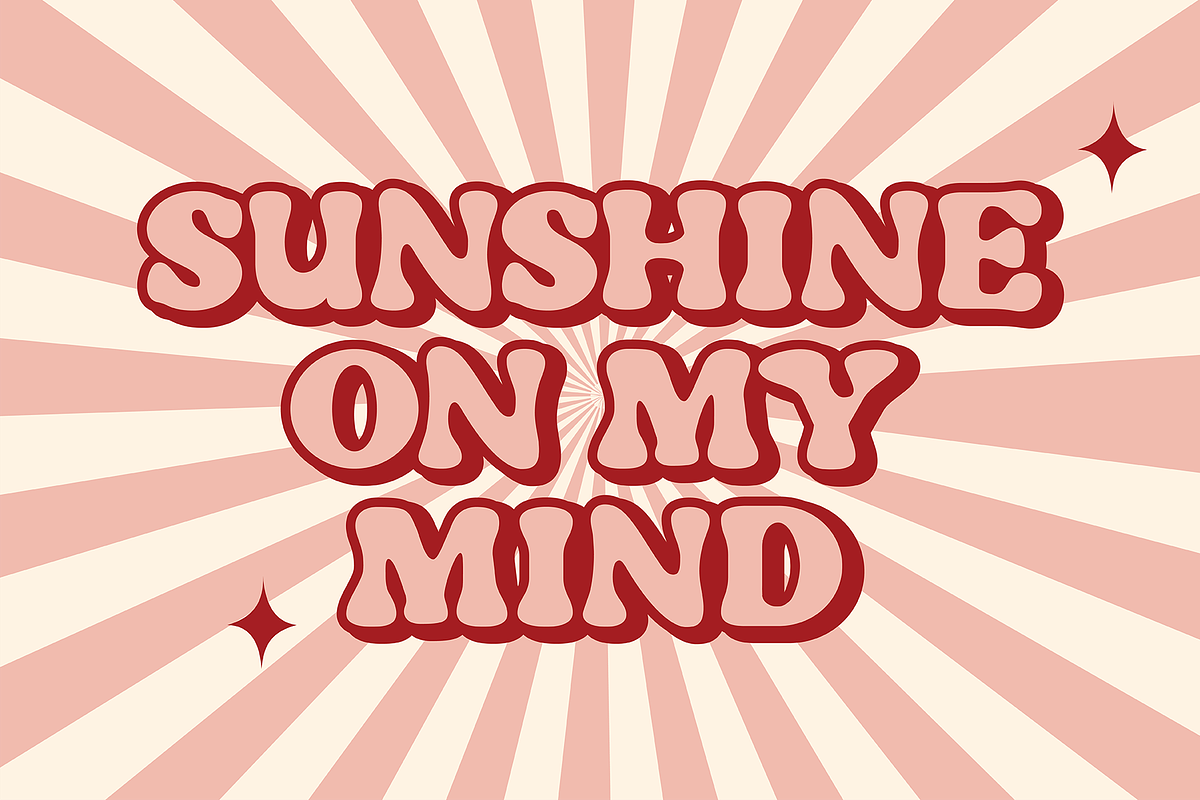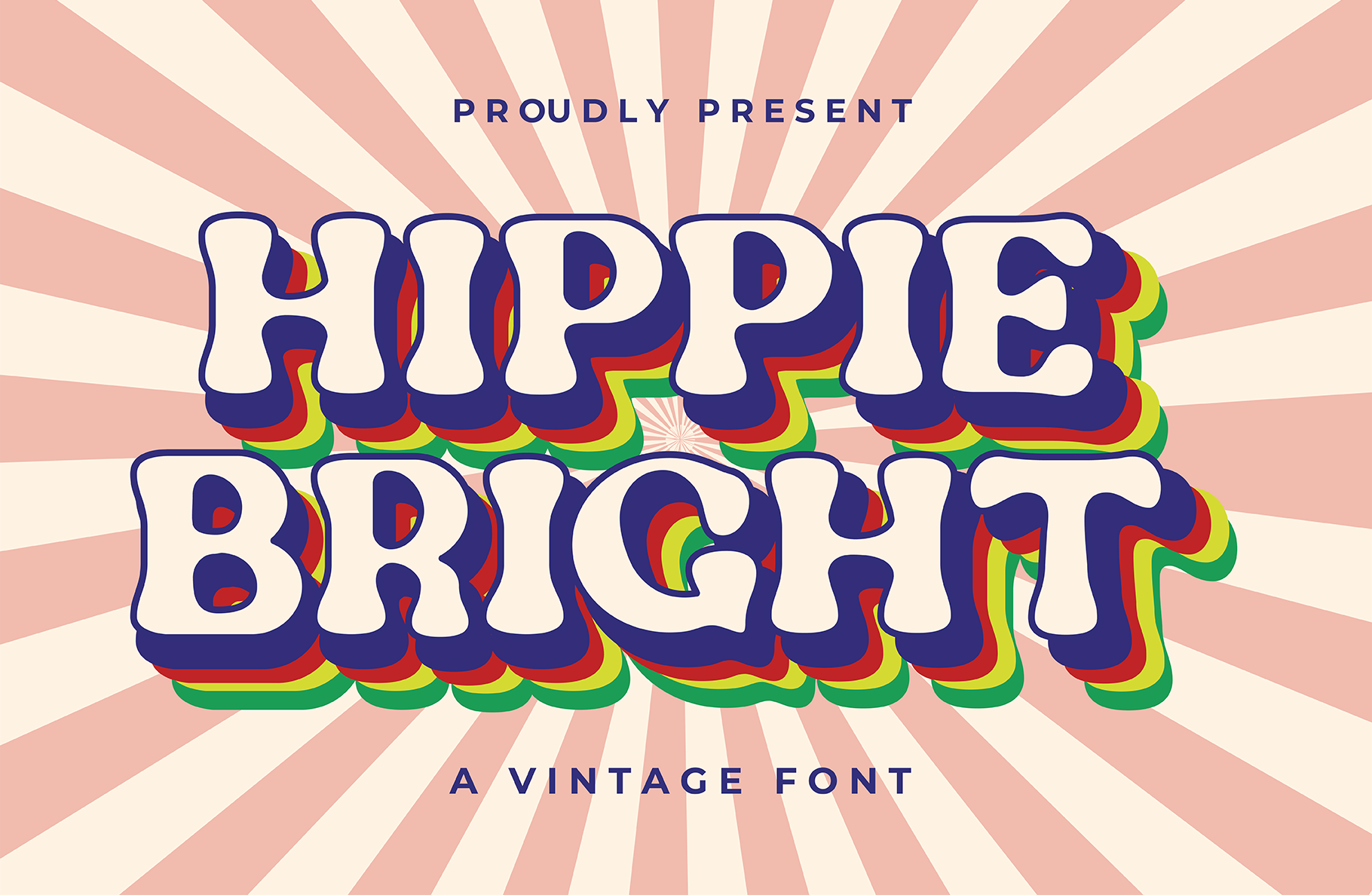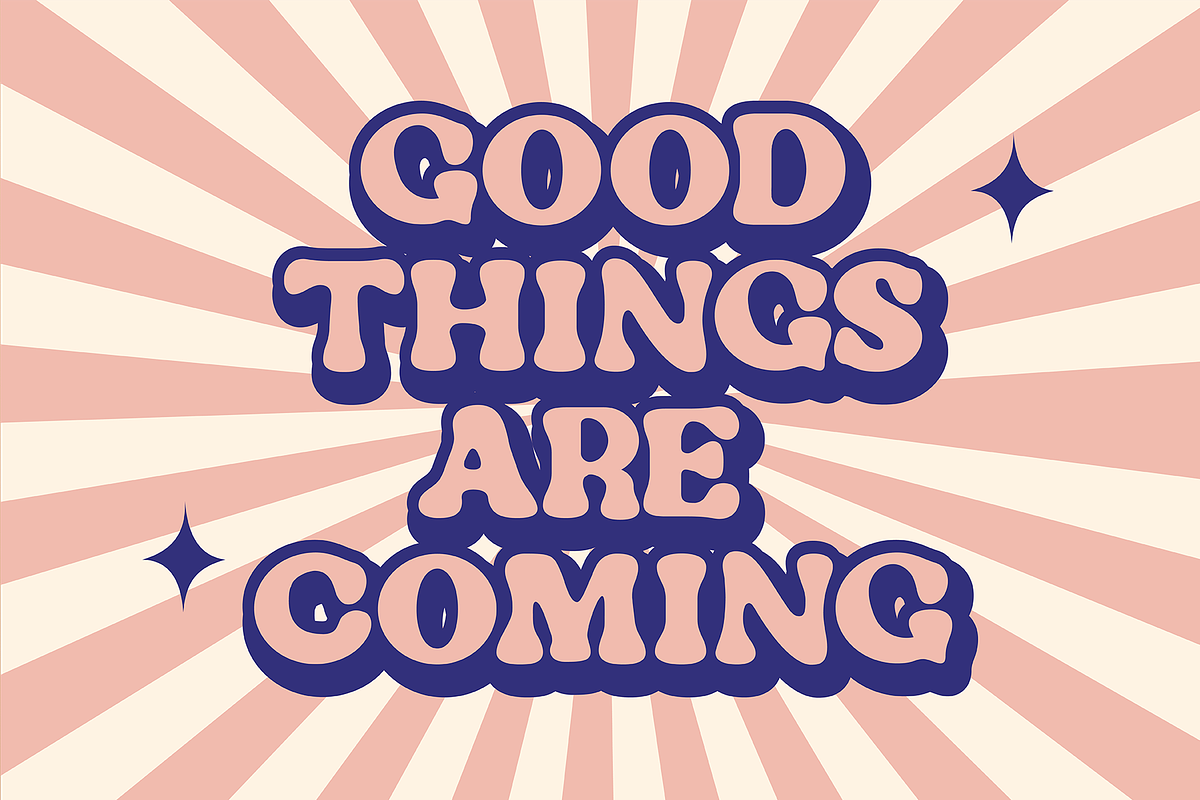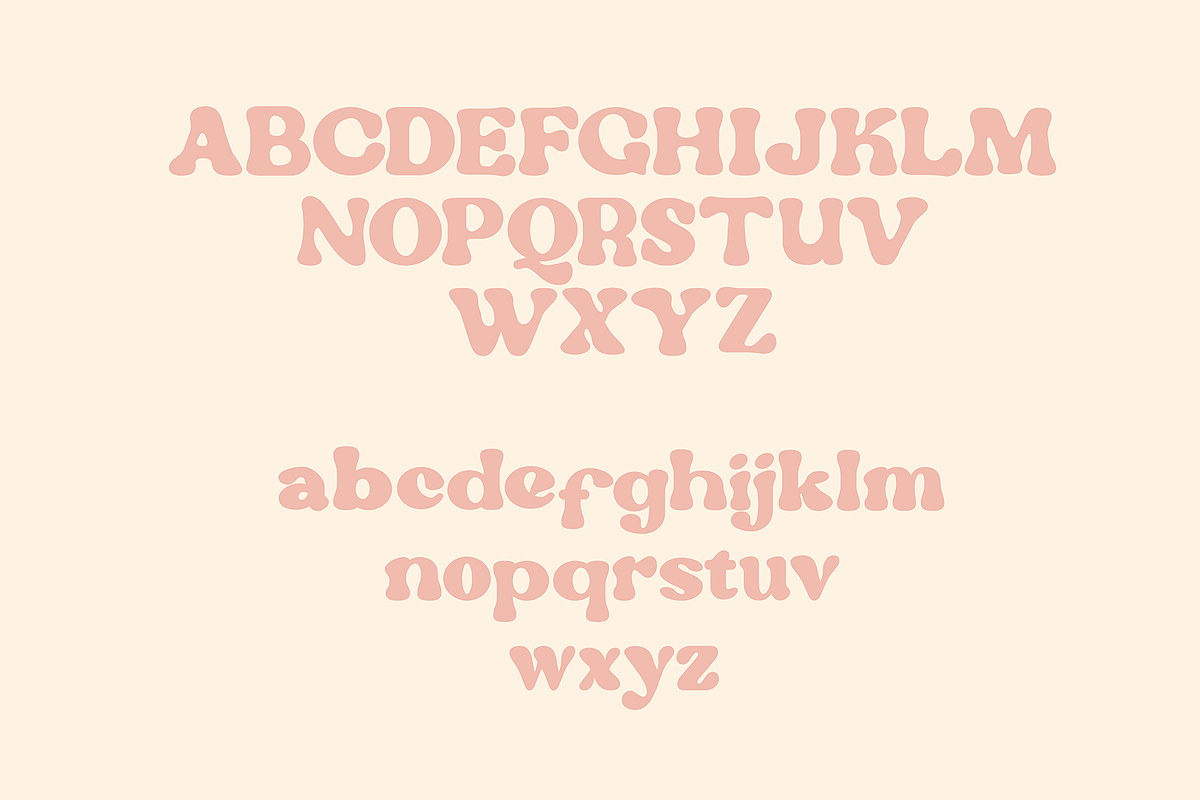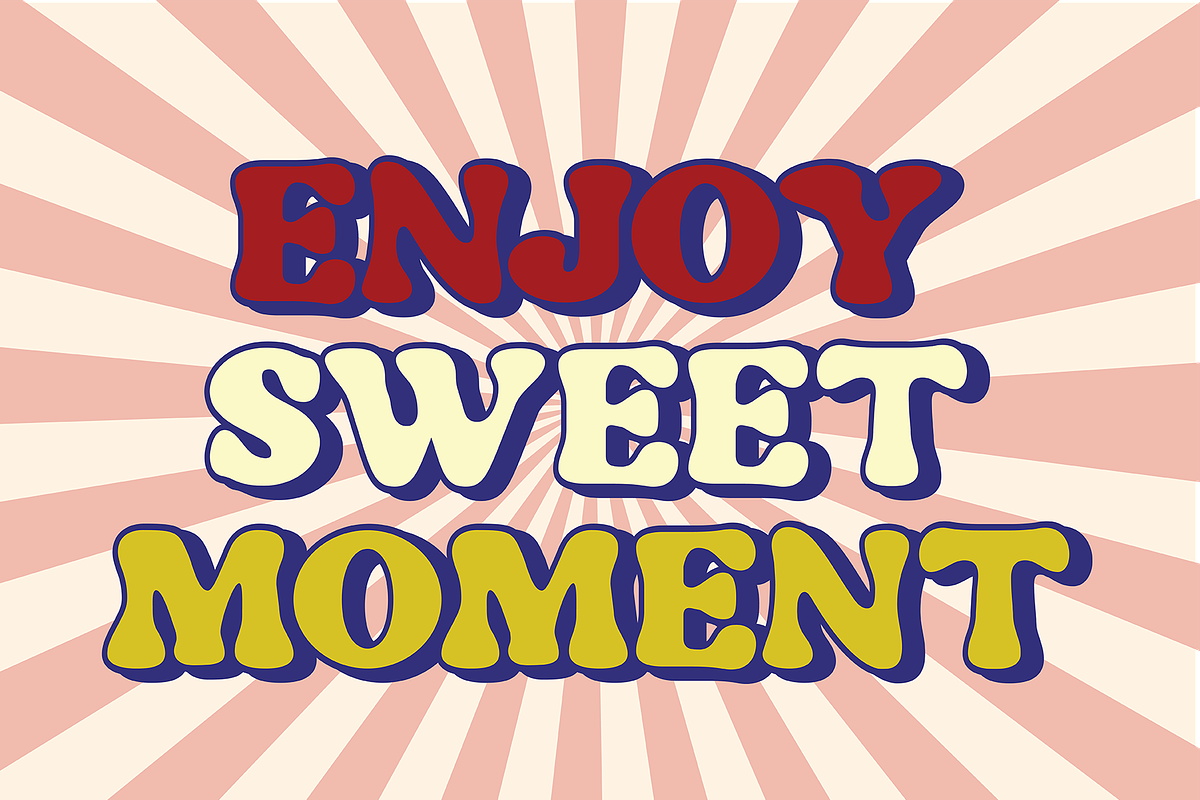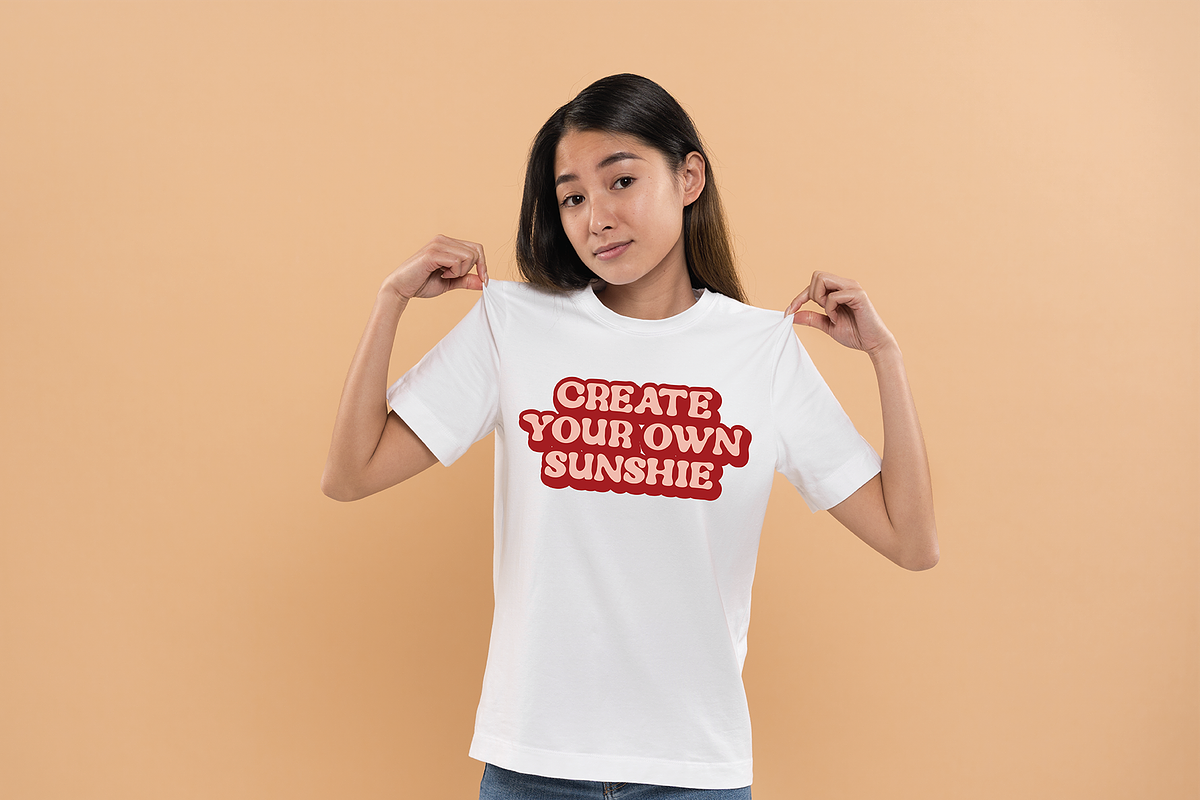
Hippie Bright Display Font
Hippie Bright is unique font,This font is perfect for a design that requires a groovy accent.Perfect for adding a touch of elegance and style to any design project, from branding to headlines to packaging.